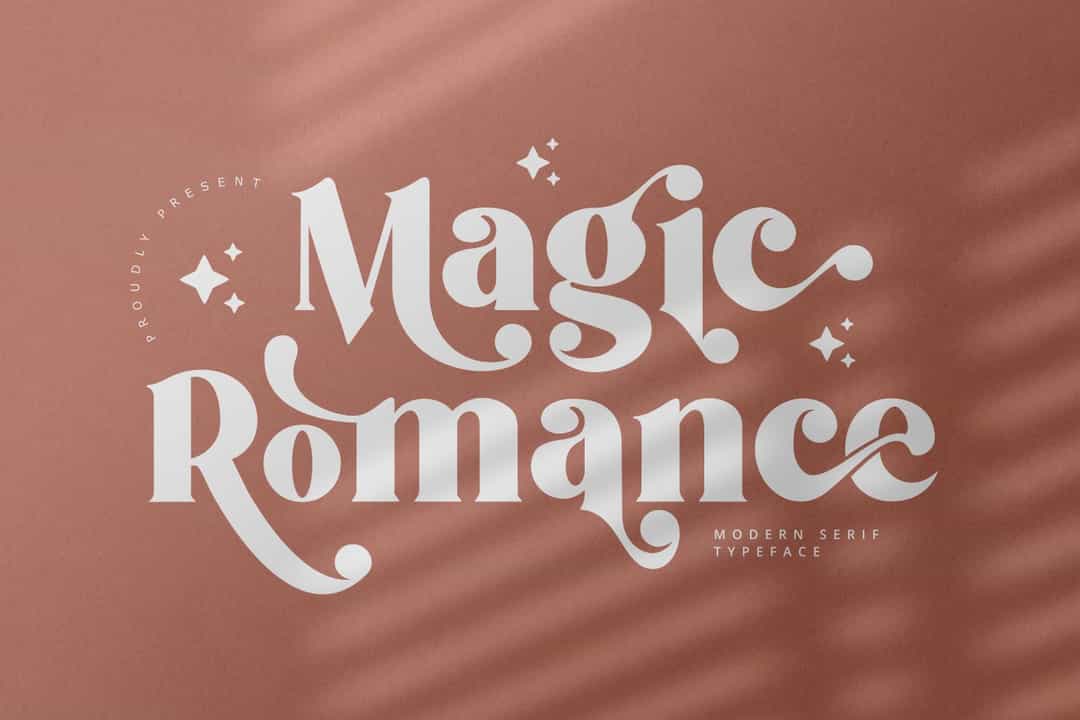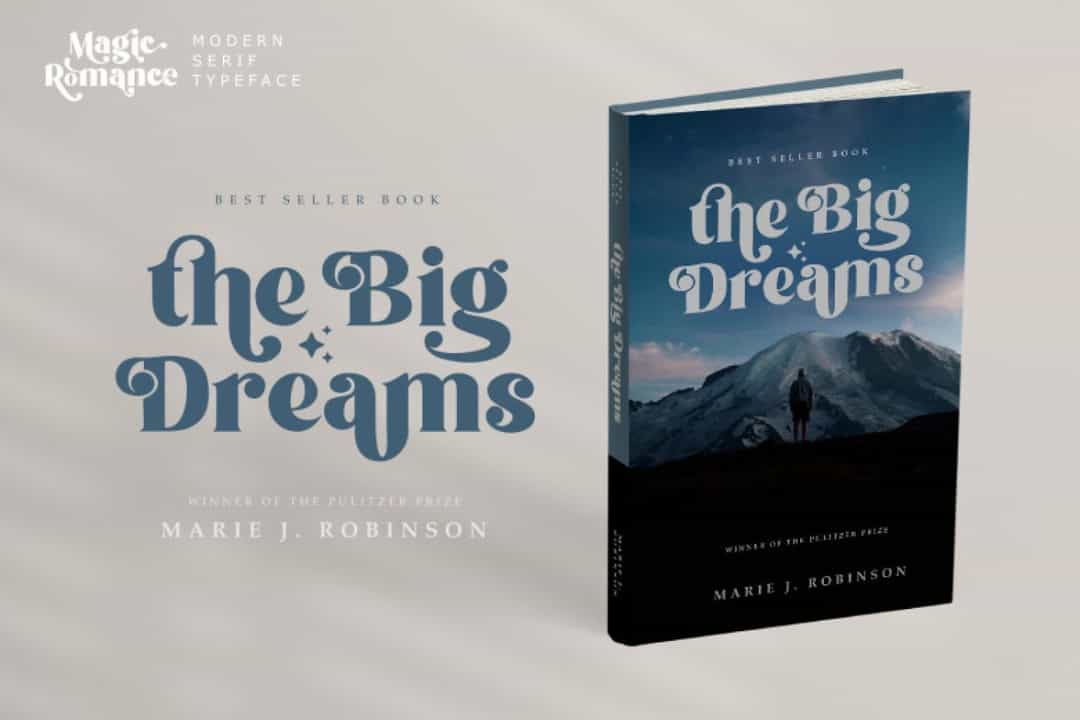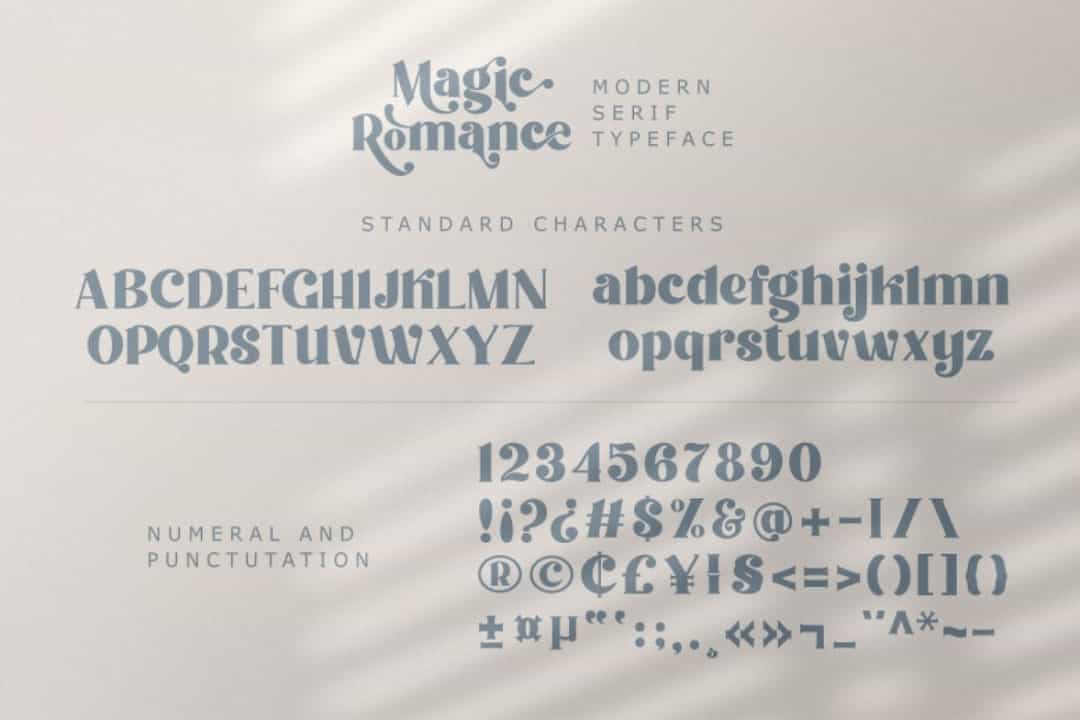
Magic Romance is a sleek and sophisticated serif font. Ideal for branding, advertising packaging, logotypes, headlines and titles in editorial design as well as branding applications – its PUA encoded format makes using all its amazing characters and ligatures fast!